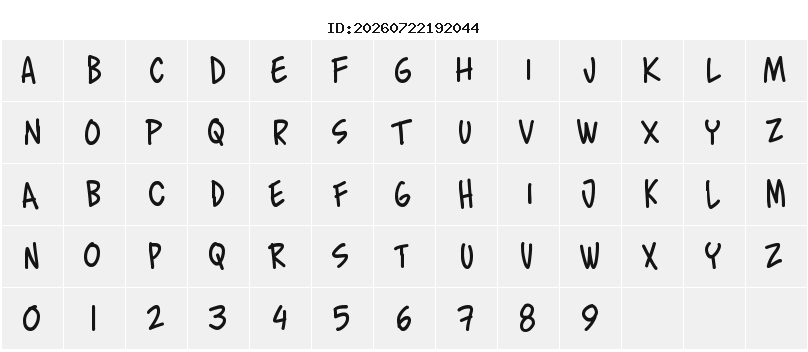
murro Preview
• Font Name: murro
• Font ID: murro:Version 1.00
• Full Font Name: murro
• Version: Version 1.00 April 11, 2009, initial release
• PostScript Name: murro
• Description: This font was created using FontCreator 5.6 from High-Logic.com
About murro.ttf
murro.ttf is a modern, elegant sans-serif font designed for ultimate readability and visual harmony. Perfect for branding, headlines, web design, and print materials.